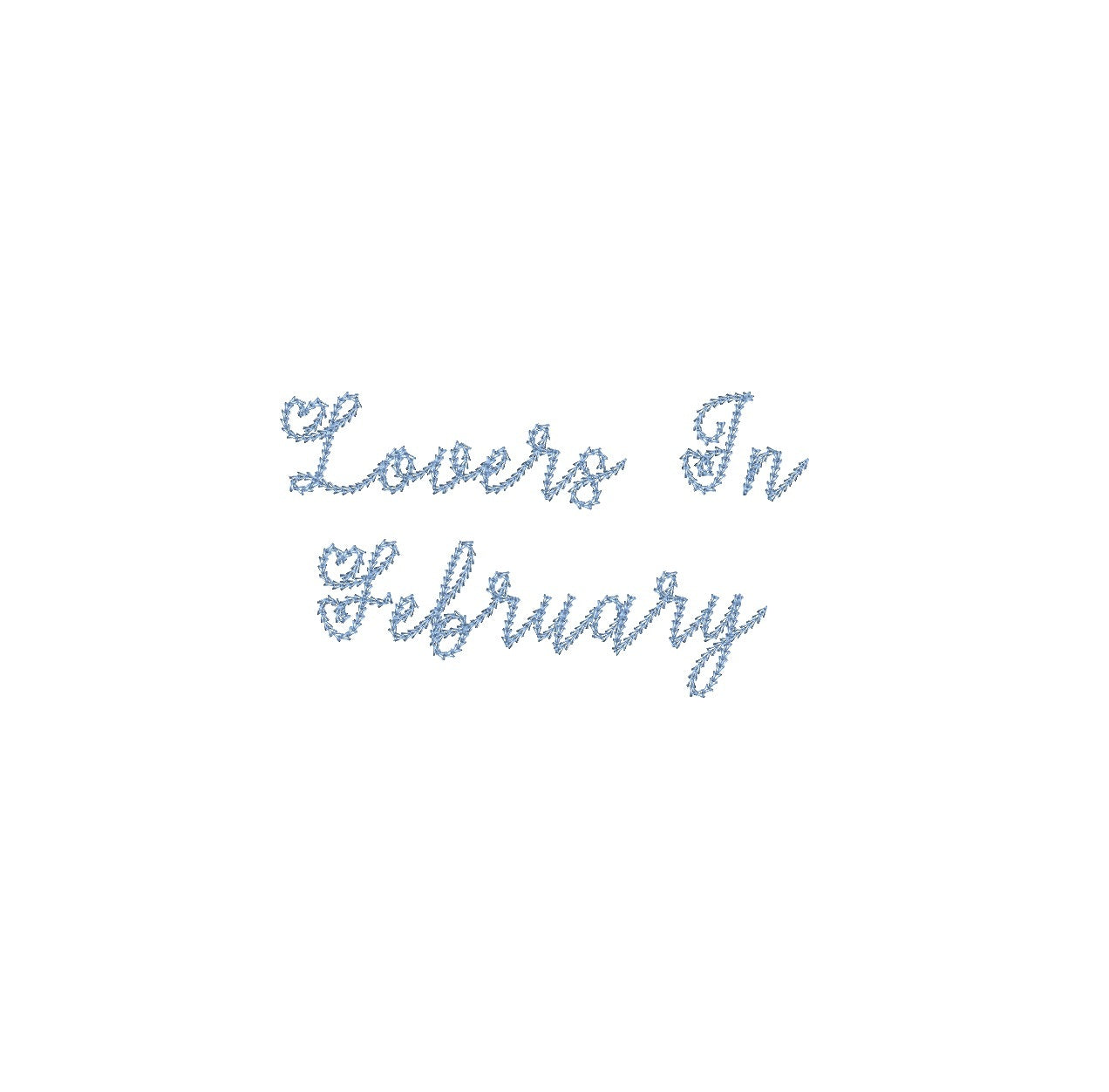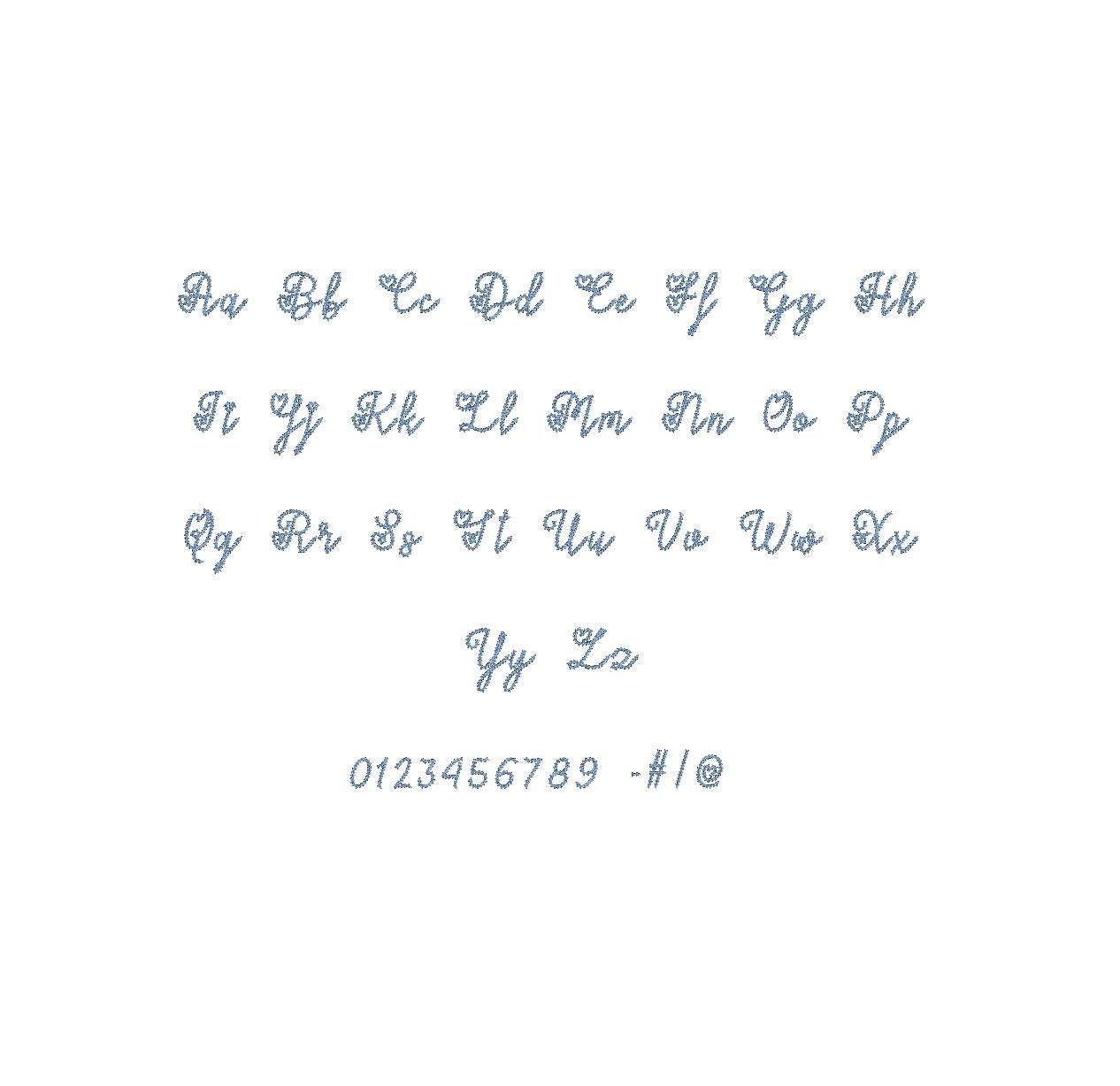
Elevate your embroidery with the Lovers in February Chain Stitch ESA font, compatible with Wilcom Studio e4.5.6 and Hatch 3 versions and up. This font adds a romantic touch to your designs. Meticulously crafted chain stitch artistry brings depth and allure to every project. Seamlessly integrate for captivating results that stand out. Lovers in February transforms fabric into a canvas of affection, infusing your creations with heartfelt charm. Elevate your embroidery with this seamless blend of technology and artistry. Experience the magic of Lovers in February Chain Stitch ESA font to redefine stitching excellence. Upgrade your designs today for passionate impact.